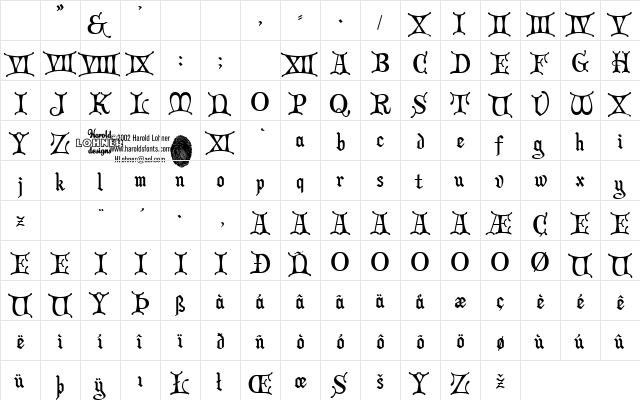
Christmas Card II Free Font
Christmas Card II
Style: II
Copyright: Christmas Card font v2.0 ©2000, 2002 HLohner ( " www.haroldsfonts.com) Based on the hand lettered opening titles of the film "It's a Wonderful Life" (Art Director: Jack Okey)
Design Context for Christmas Card
Christmas Card is a composed and adaptable typeface that performs quietly and consistently across a wide range of design contexts.